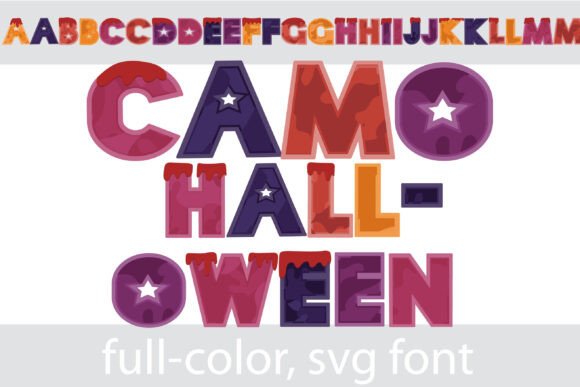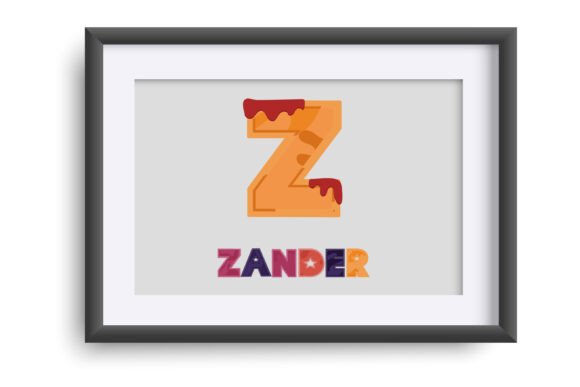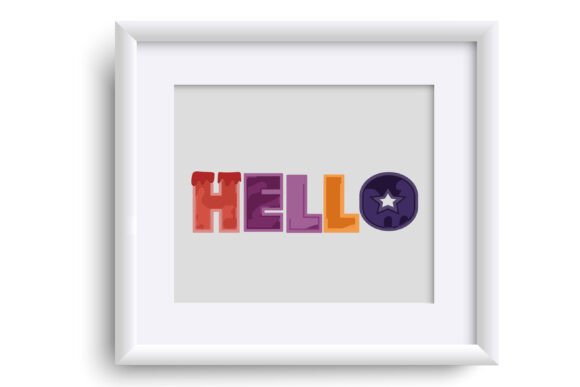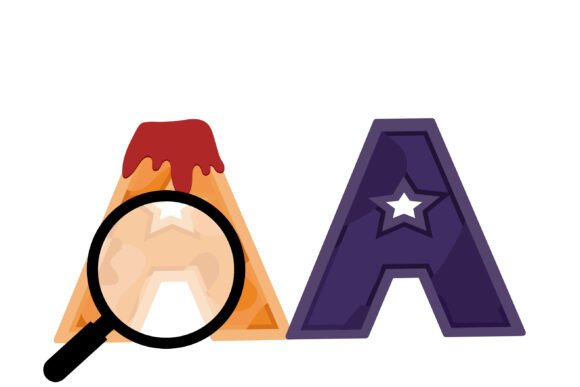
Camo Halloween Font
About the Camo Halloween Font
Presenting Camo Halloween Font, a unique and stylish typeface that will make your work stand out. This full-color font features camouflaged lettering in a Halloween color palette with some oozing blood. There is an alt version you can access through your system’s character map that contains additional colors of all the letters. This font works best for titles, displays, posters and more. Please note color fonts will show as black in non compatible programs. This font type is compatible with Silhouette Studio.